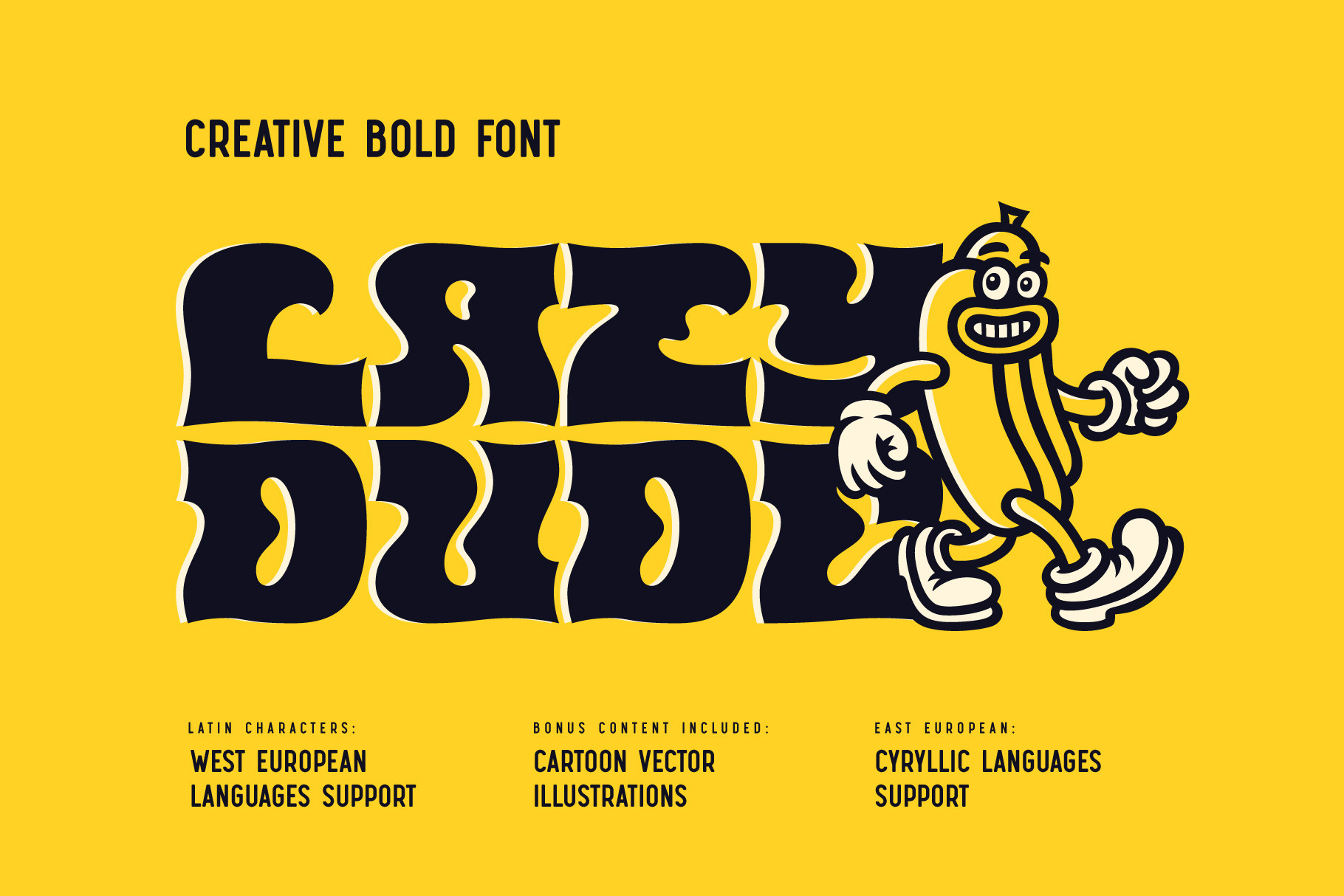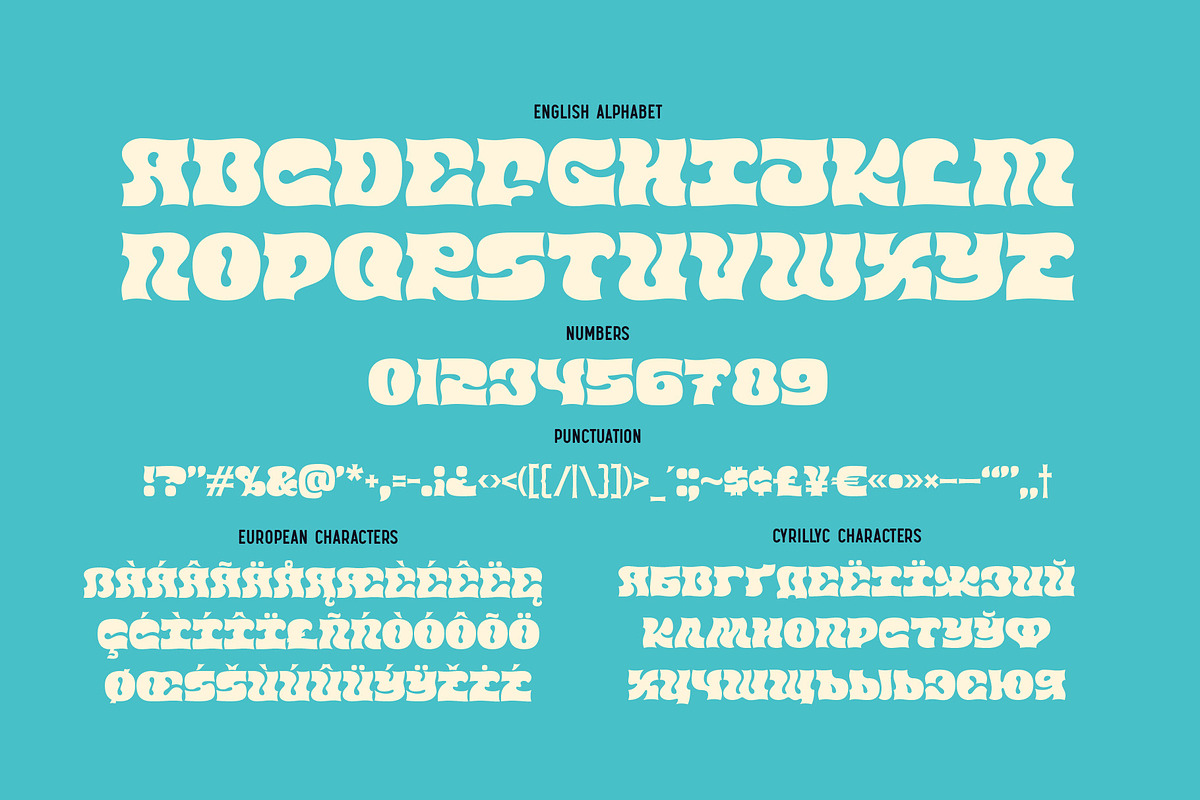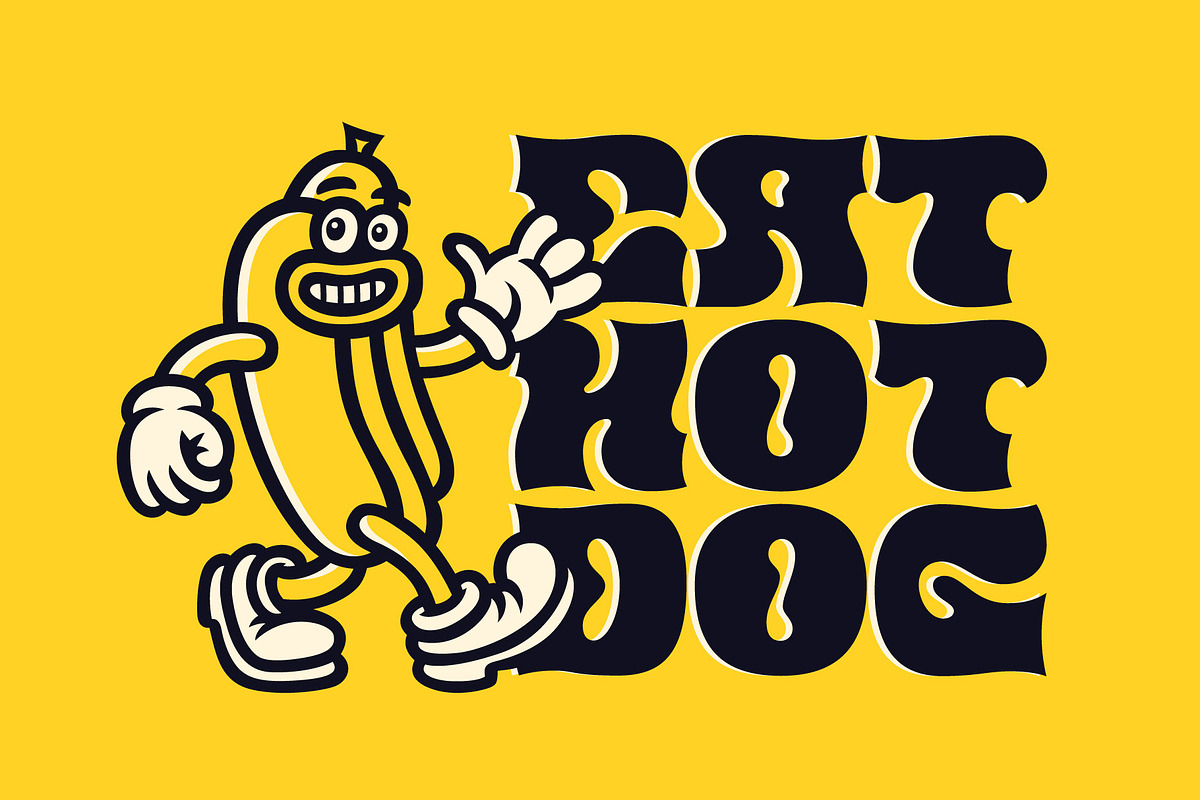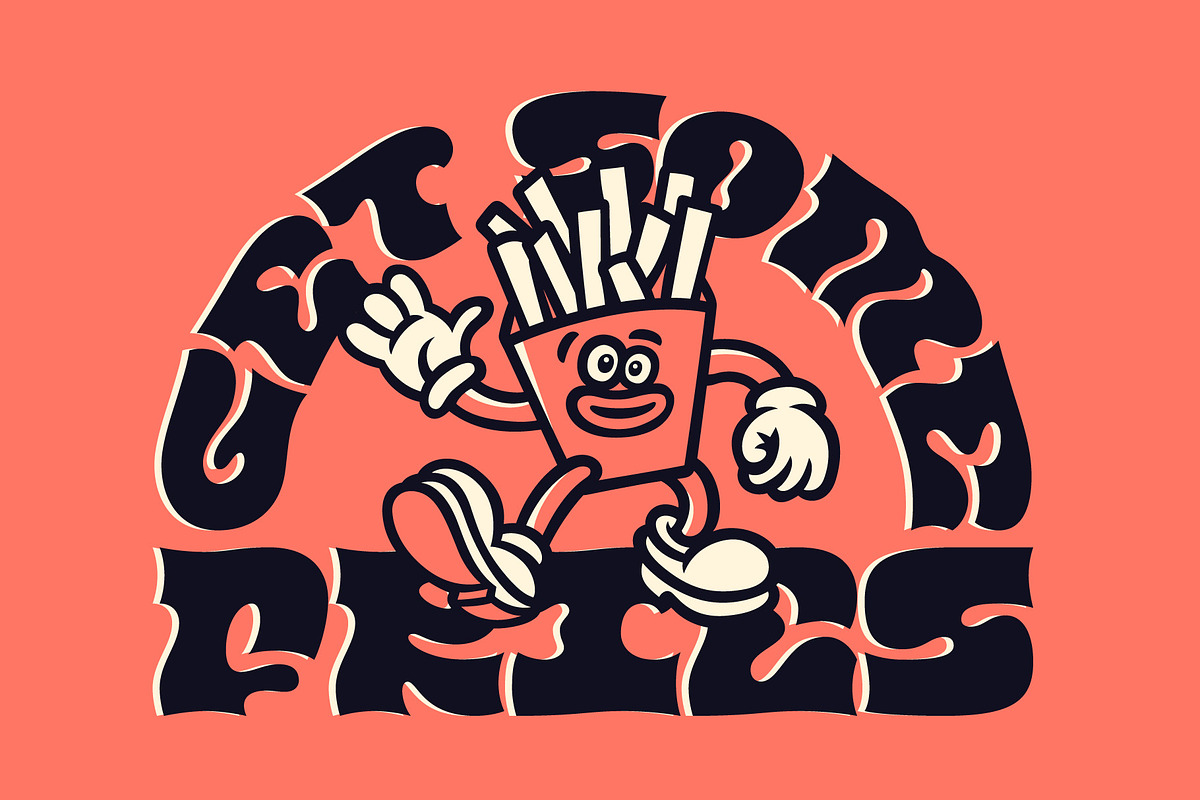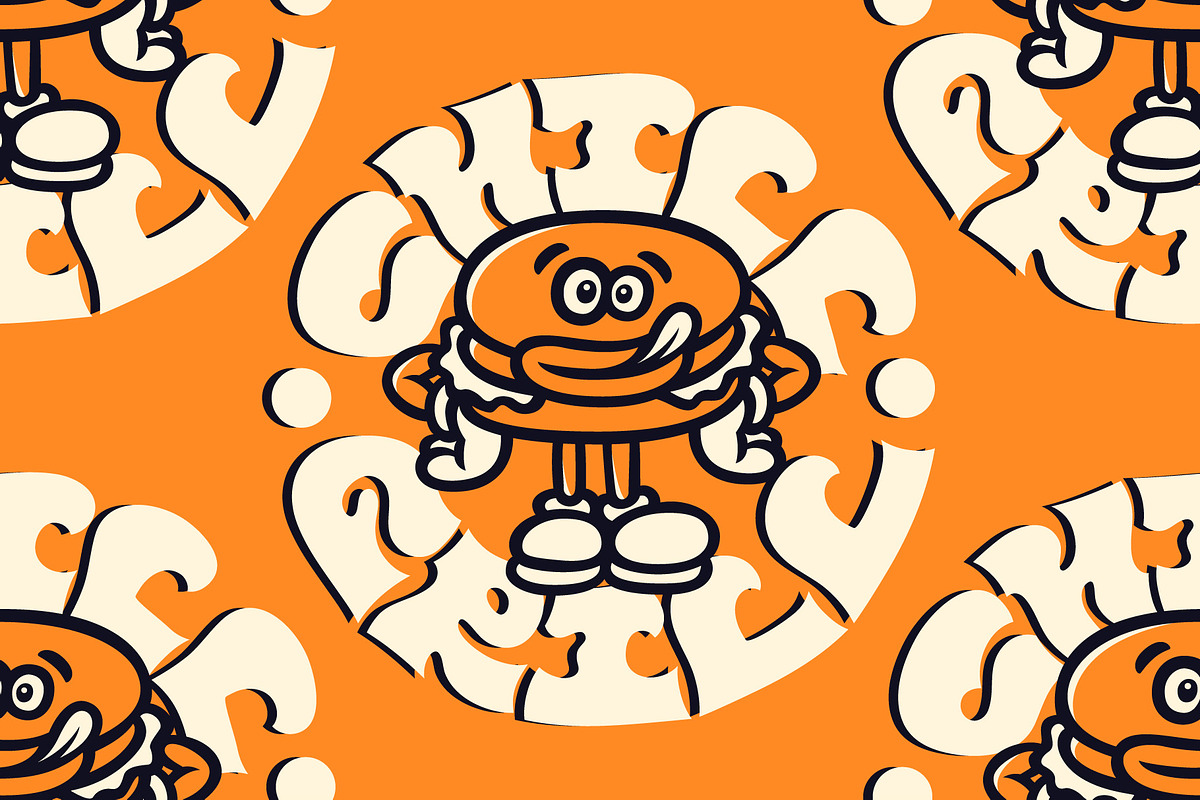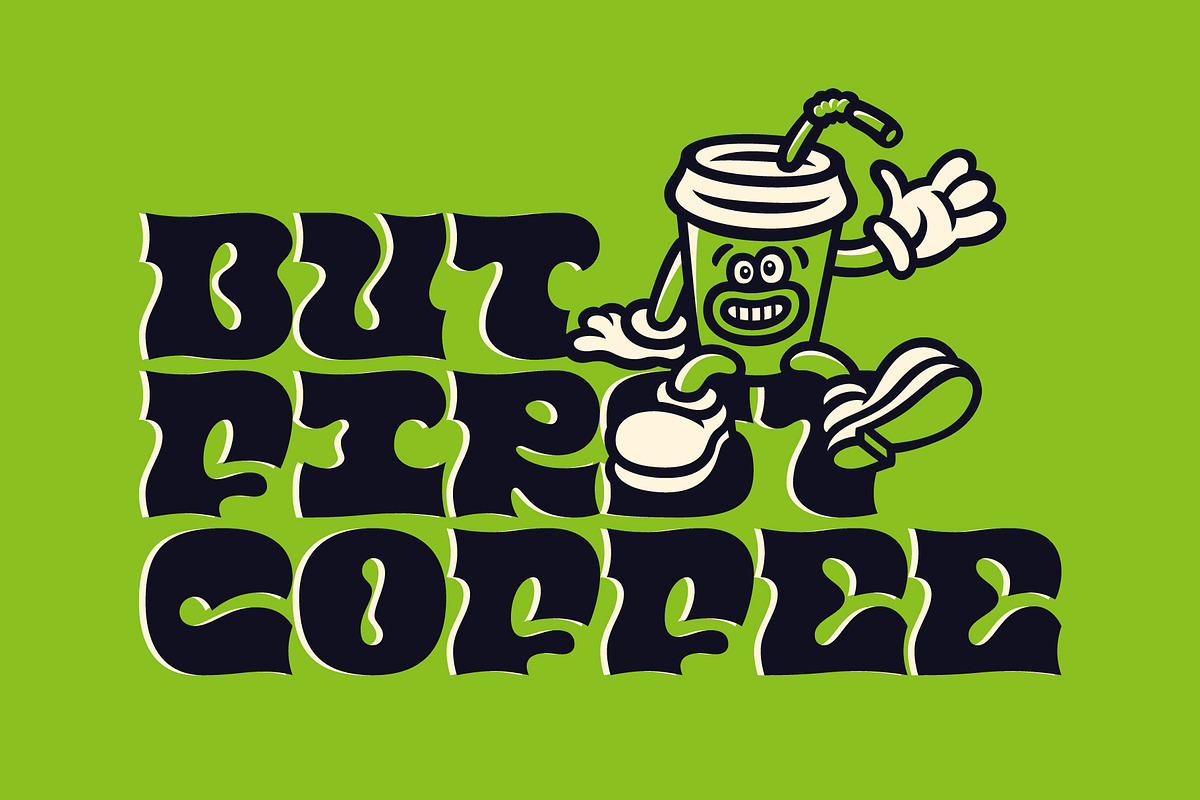
Lazy Dude - font and illustrations
Hi, introducing a creative bold font Lazy Dude. It's an all caps typeface with smooth curvy shape. Lazy Dude has a wide languages support with west european and cyrillic characters (check out all available characters on previews).
Lazy Dude font comes with a nice bonus – vector posters with funny cartoon illustrations. All this crazy fast food guys that you see on the previews.